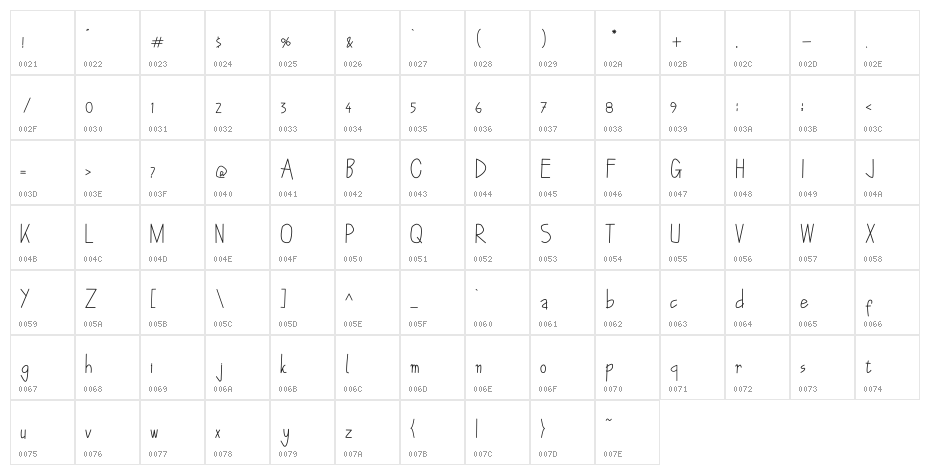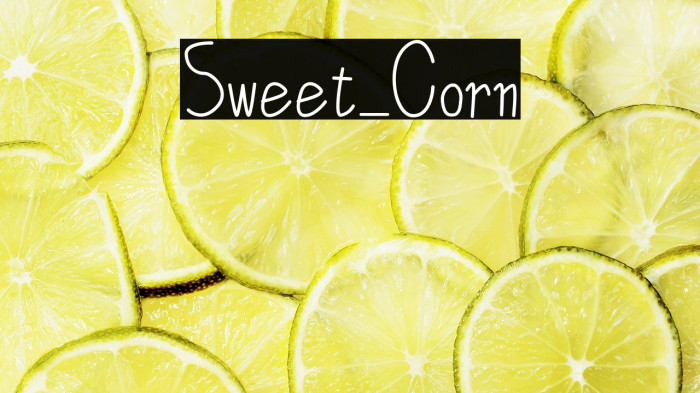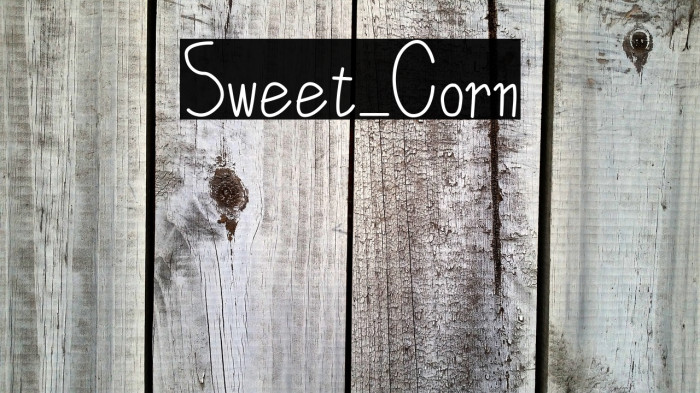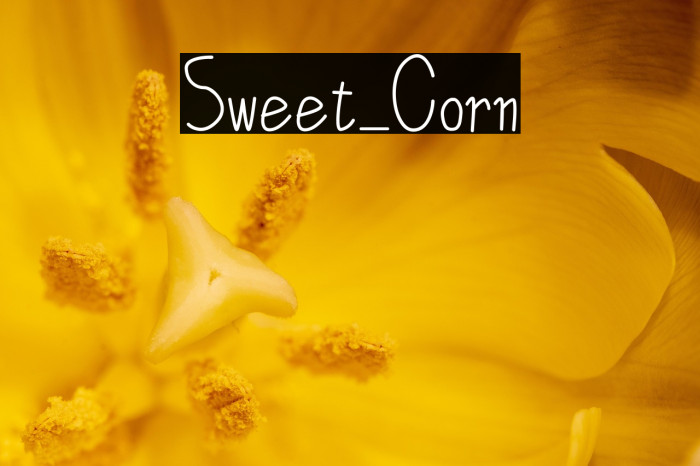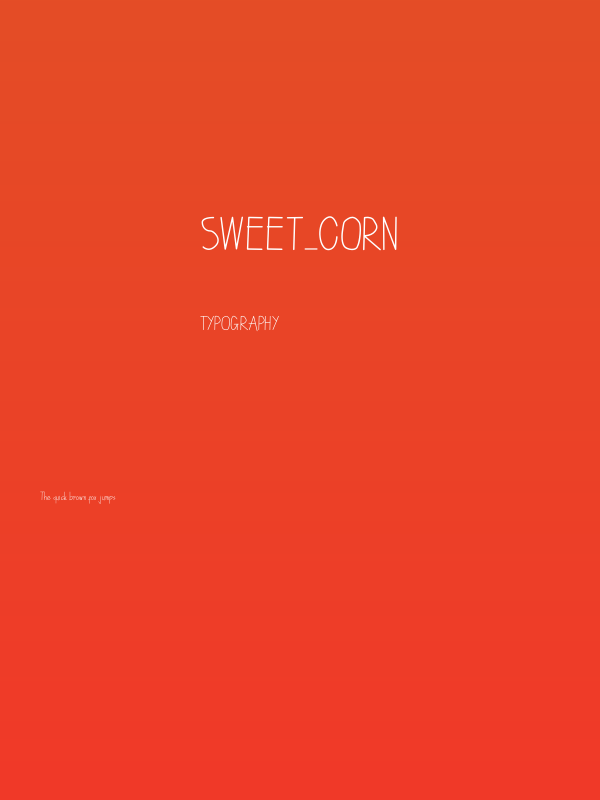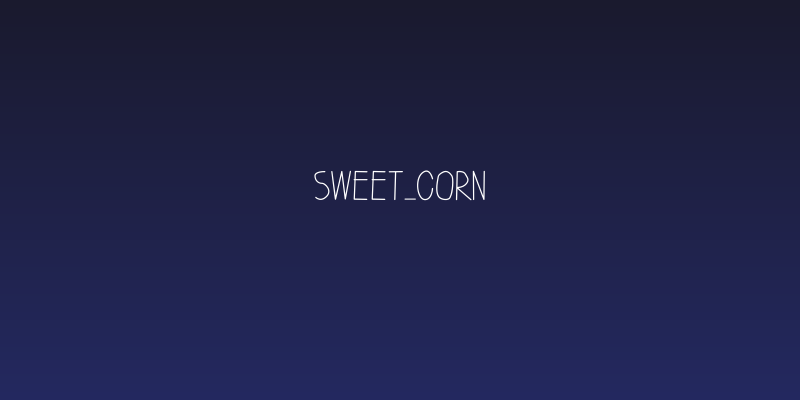
Sweet_Corn Font
This font features a playful and whimsical handwritten style, characterized by its tall, narrow letters with a slightly irregular baseline. The strokes are thin and consistent, giving it a light and airy feel. The uppercase letters are distinctively taller than the lowercase, adding a sense of elegance and charm. The numerals and special characters maintain the same playful aesthetic, making it versatile for various creative projects. Its unique style is perfect for adding a personal touch to any design.
| Width | Condensed |
| Overall Style | Playful |
| Use Case | Headlines, Logos, Invitations |
| Proposed Projects | Ideal for greeting cards, invitations, children's books, and playful branding projects. |